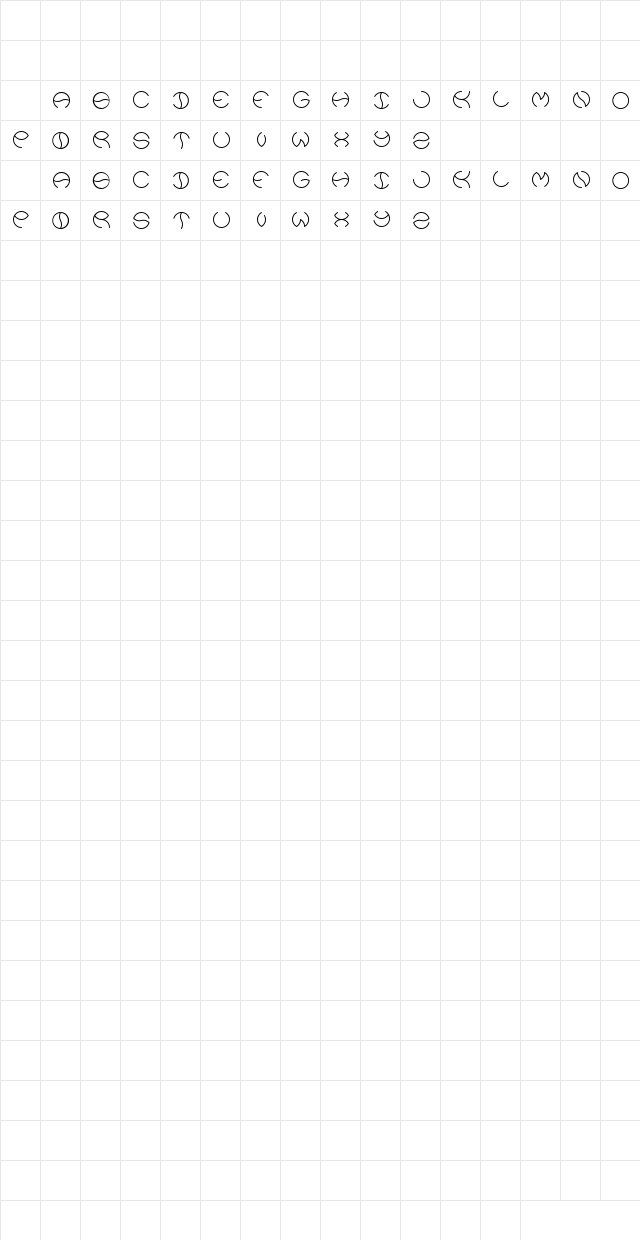
Complete kristina Regular glyph index. Displaying only characters natively supported by kristina Regular font.
kristina is a composed and adaptable typeface that performs quietly and consistently across a wide range of design contexts.